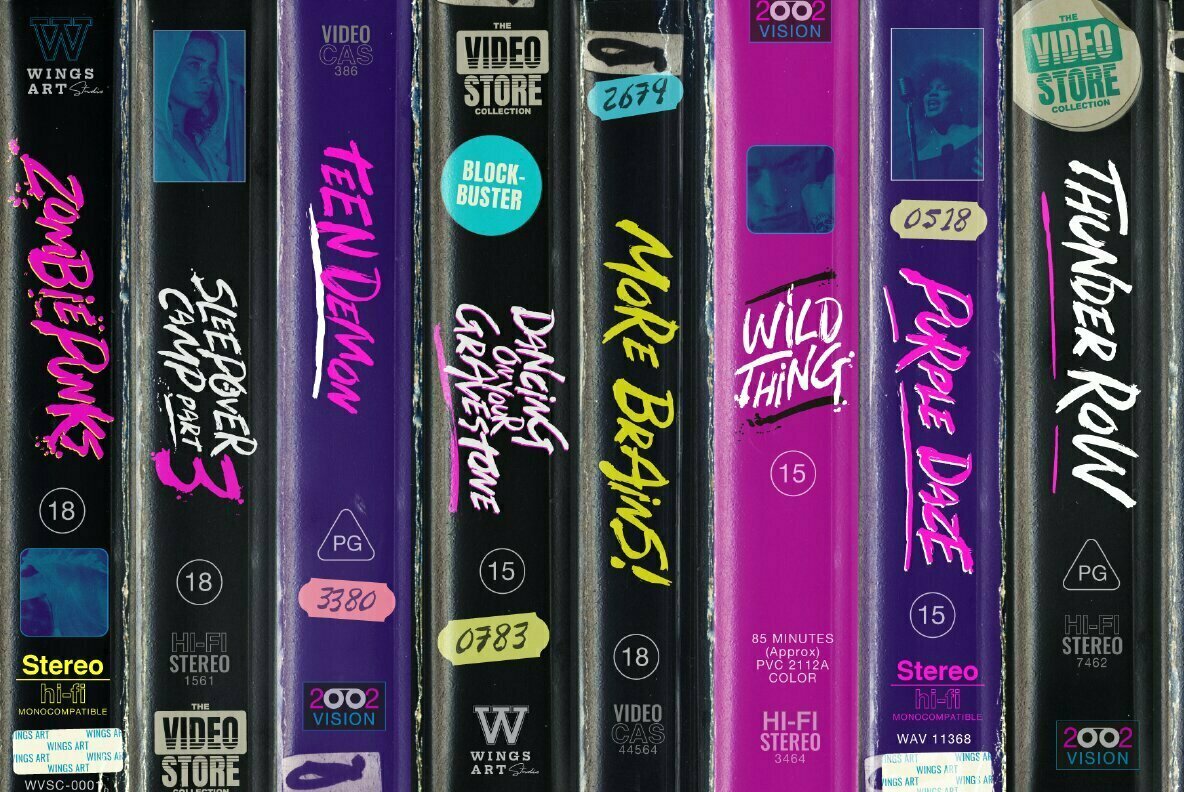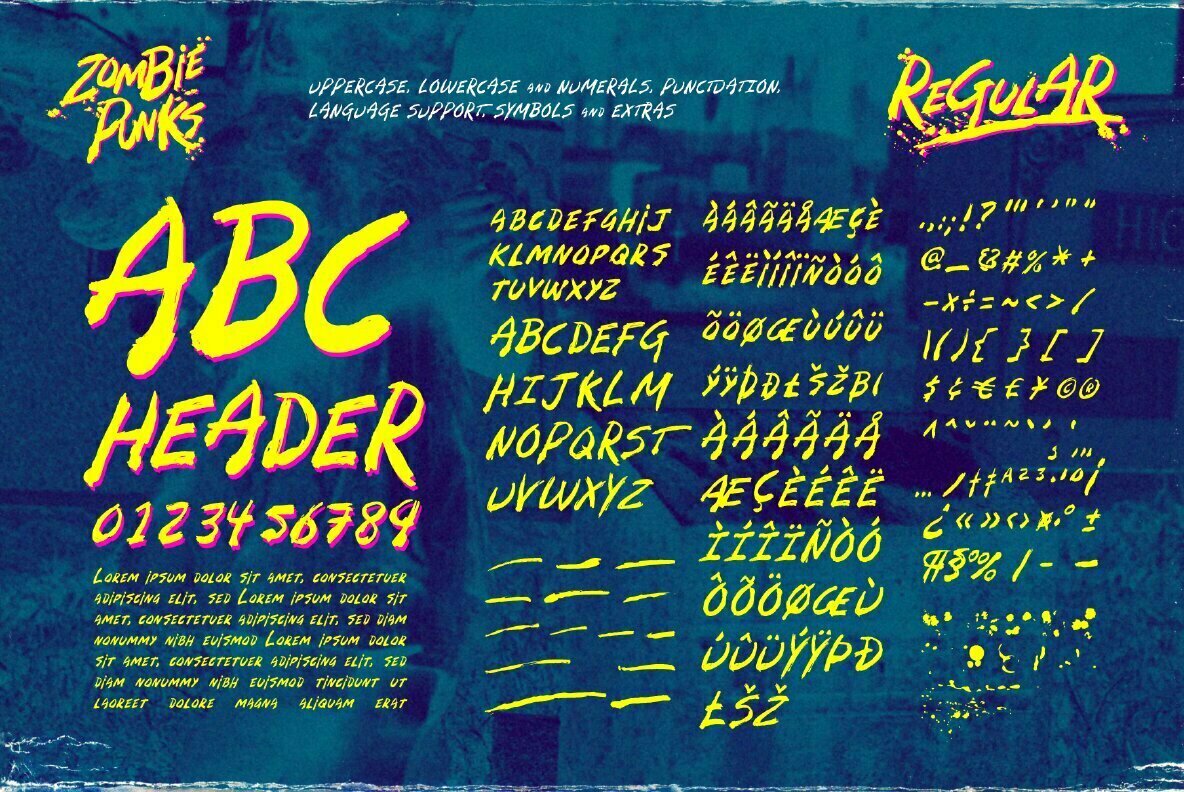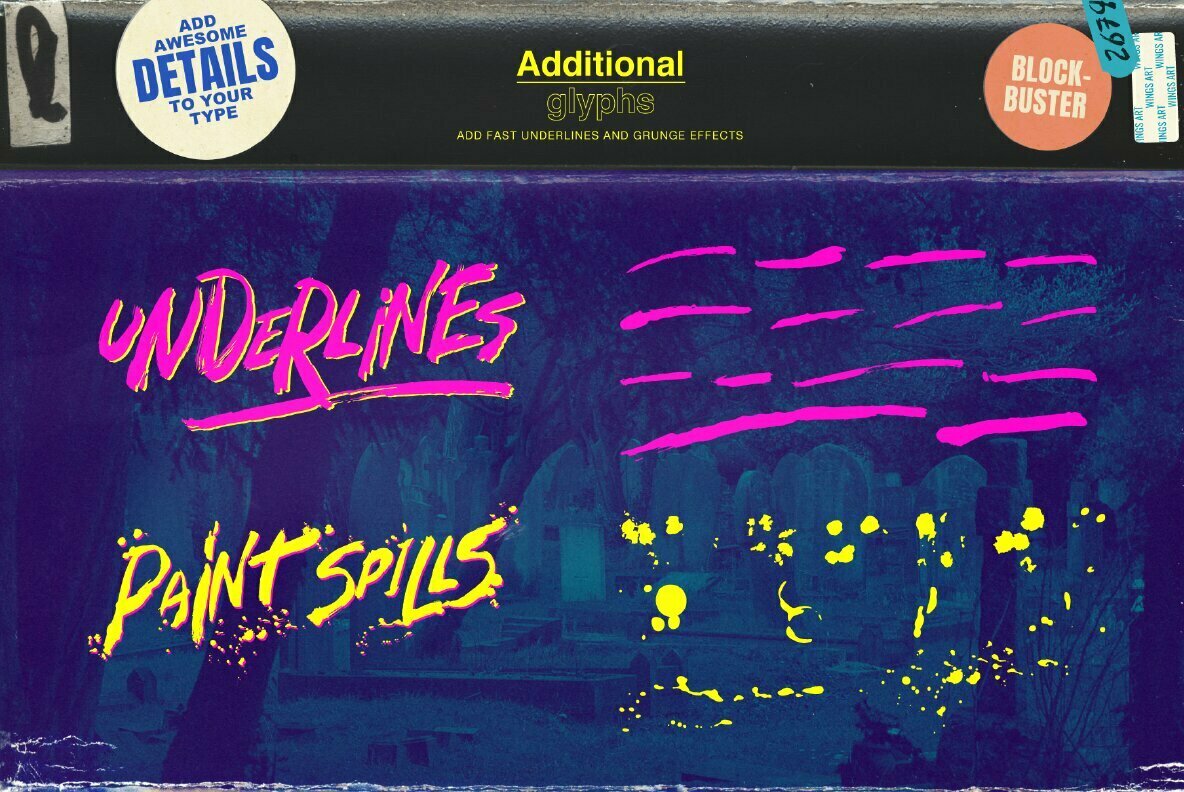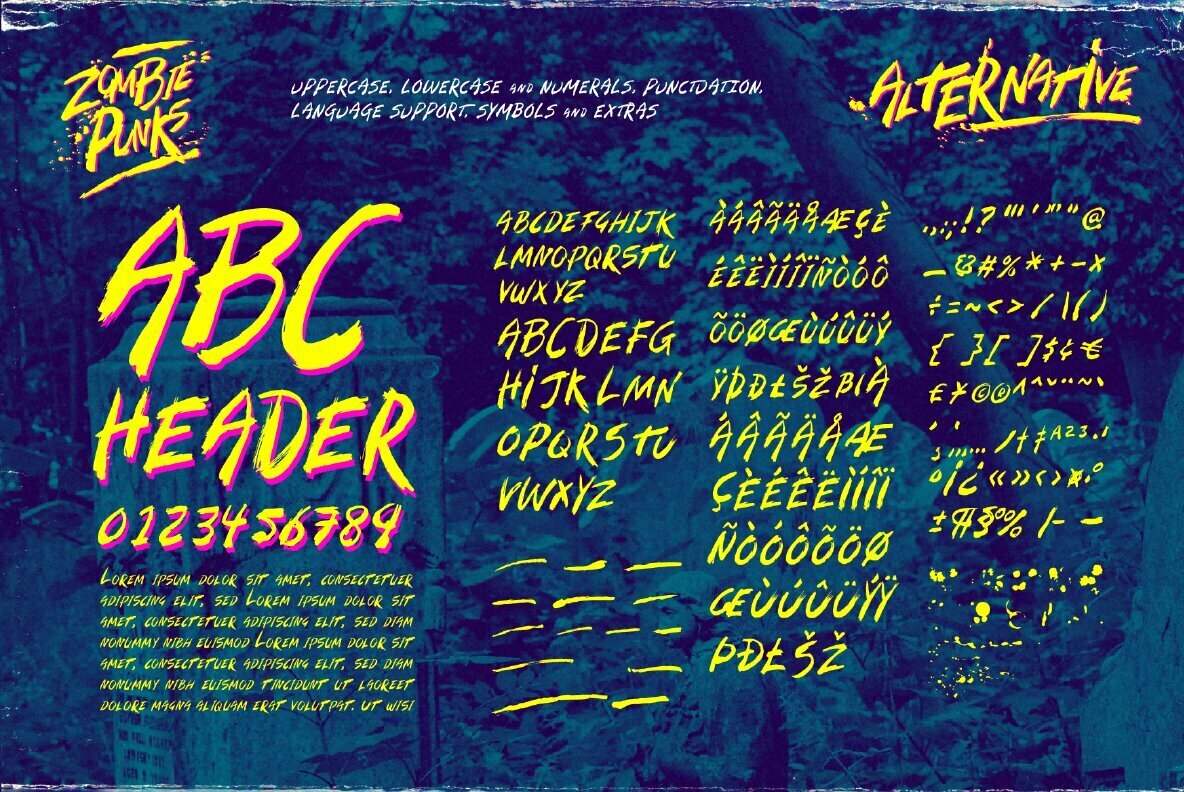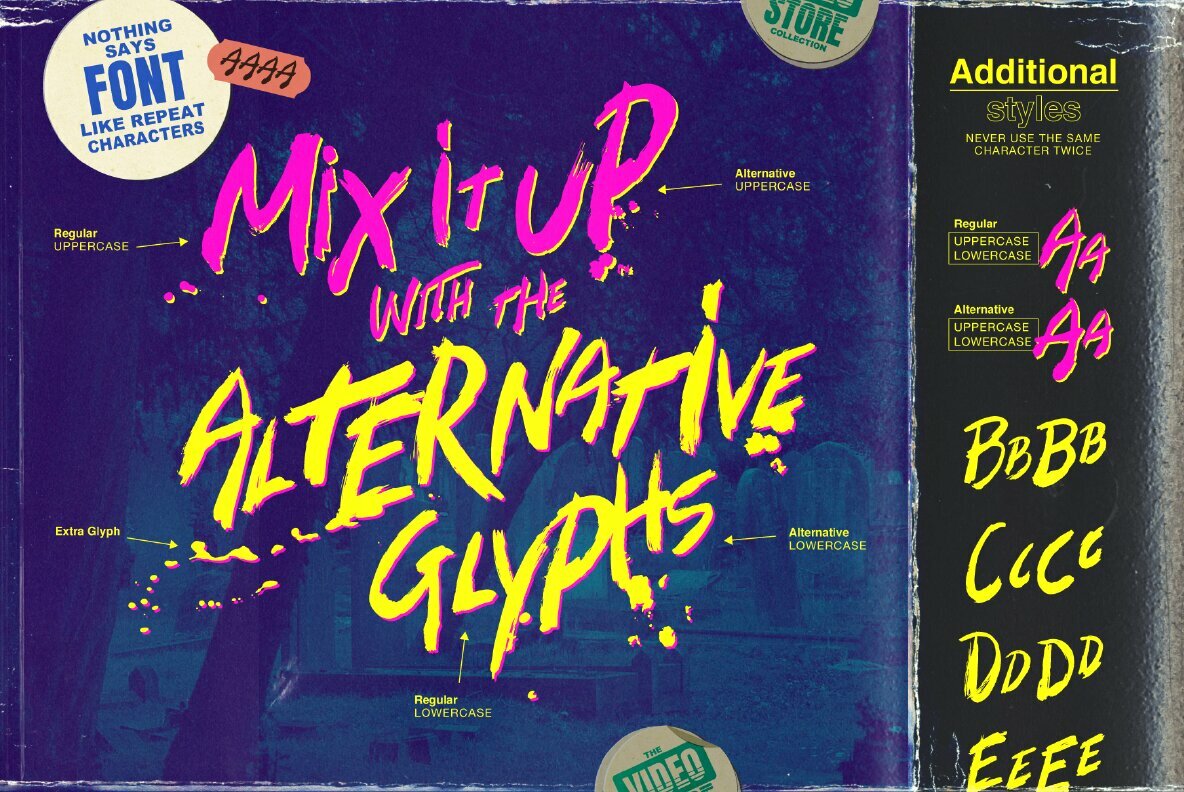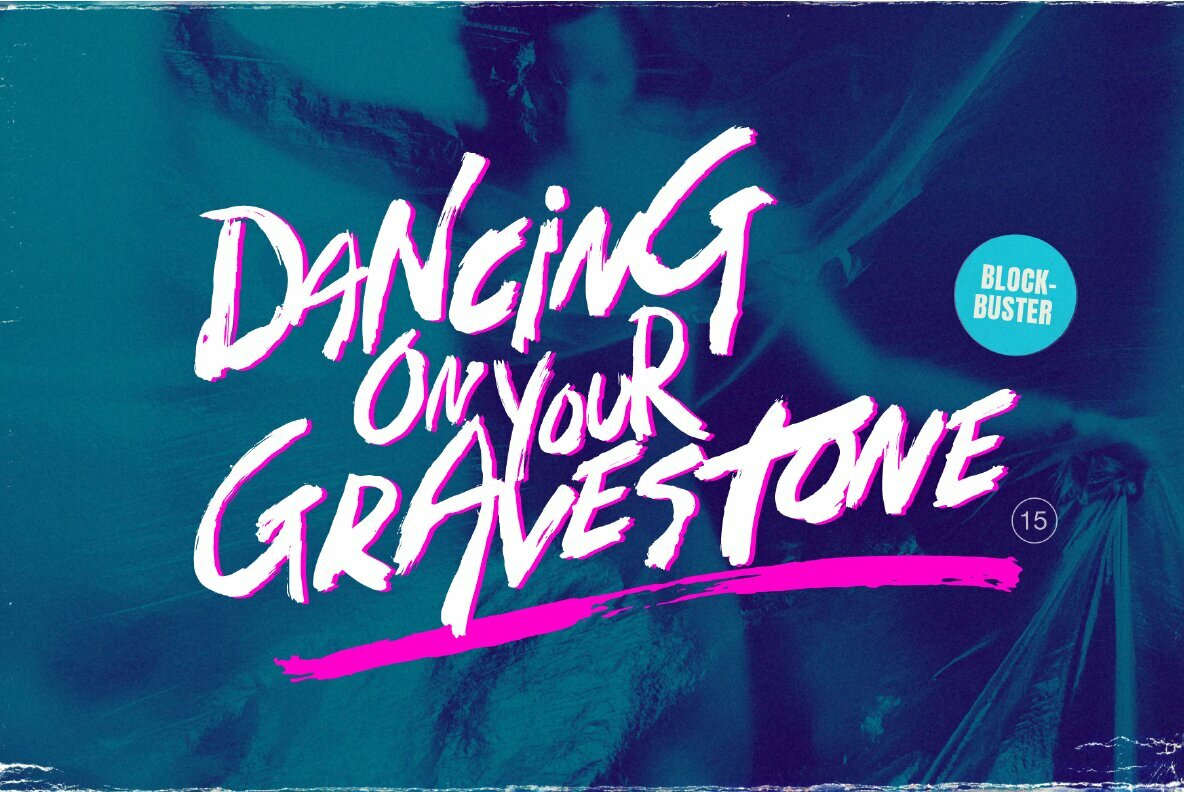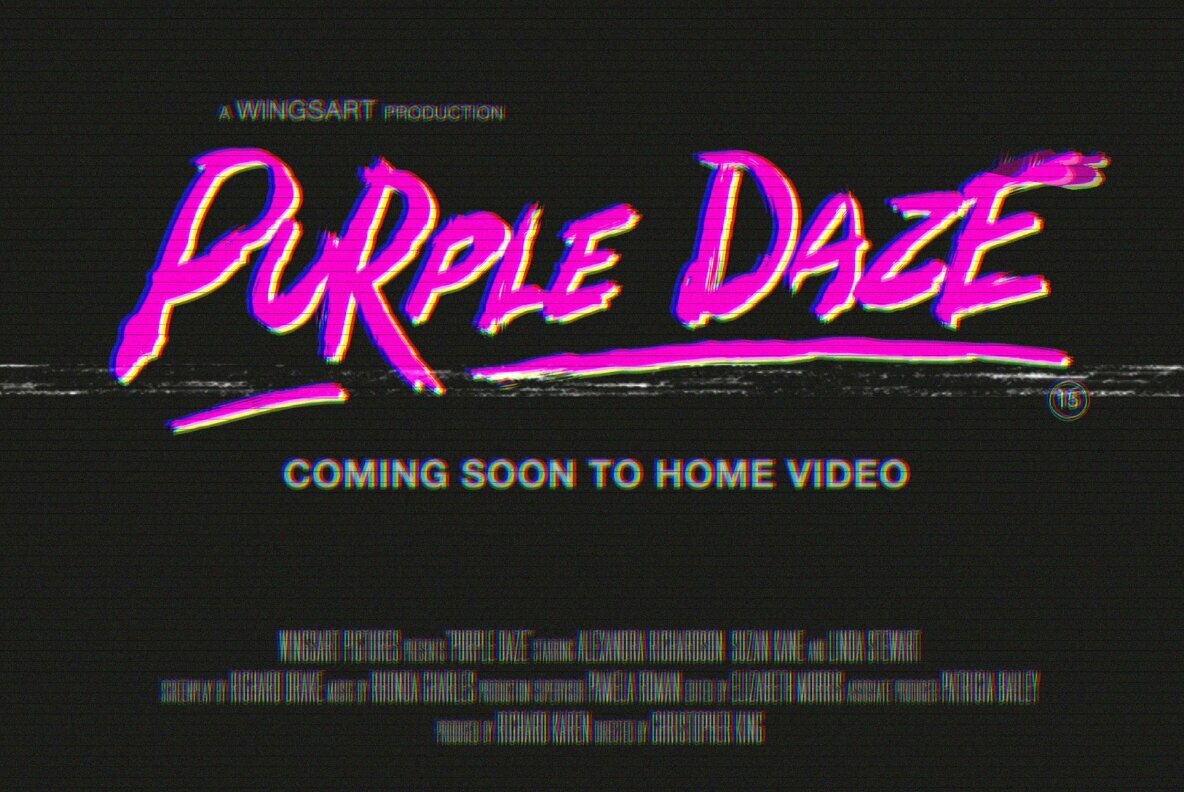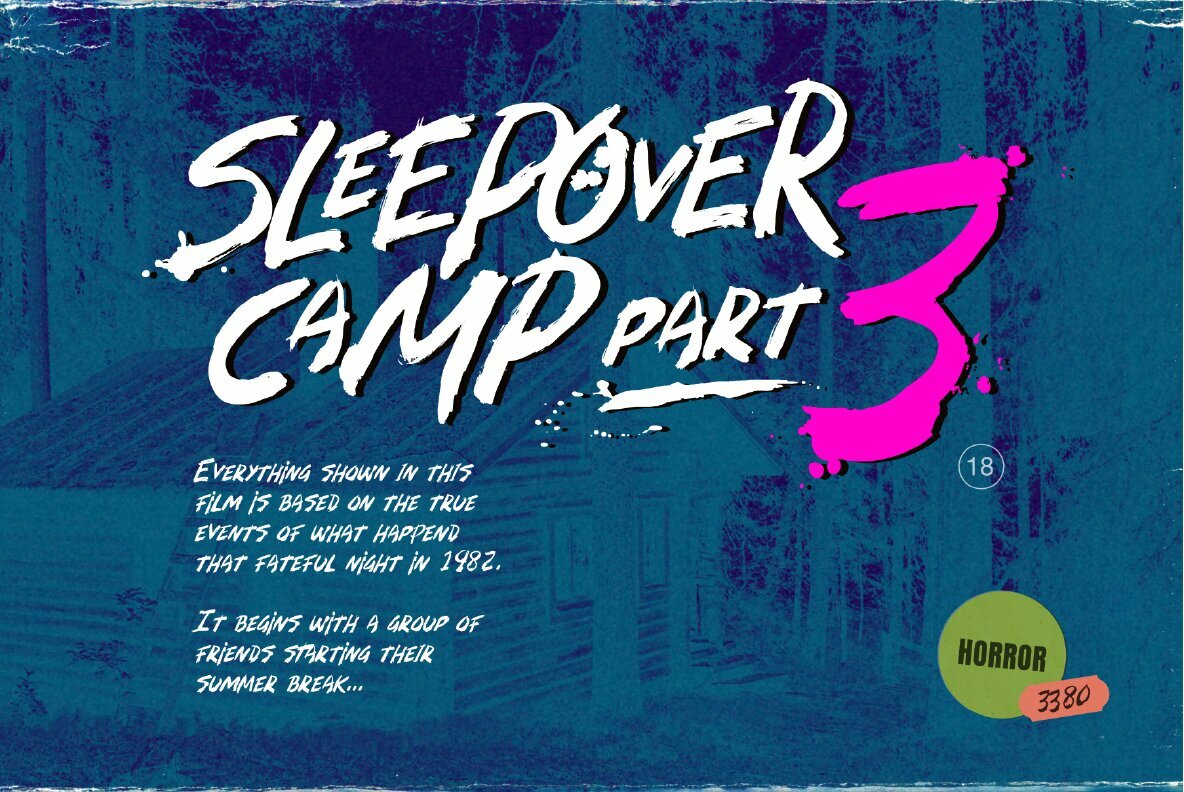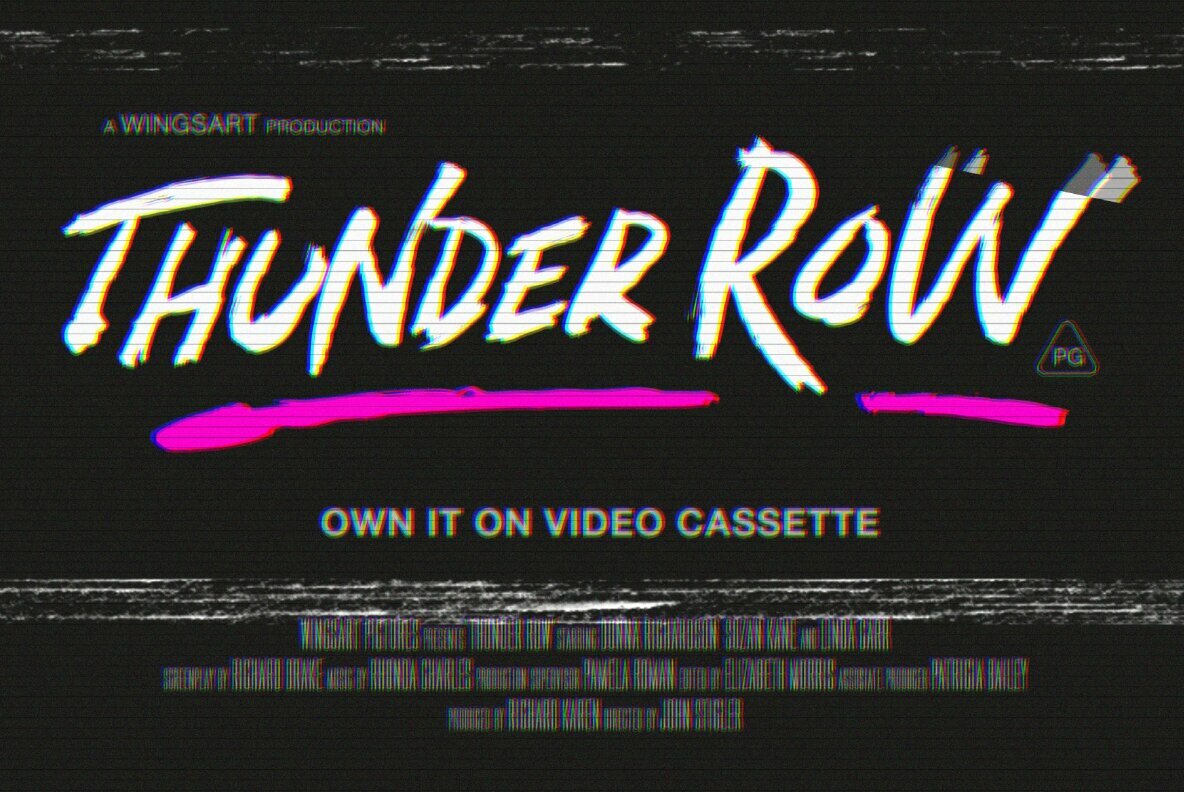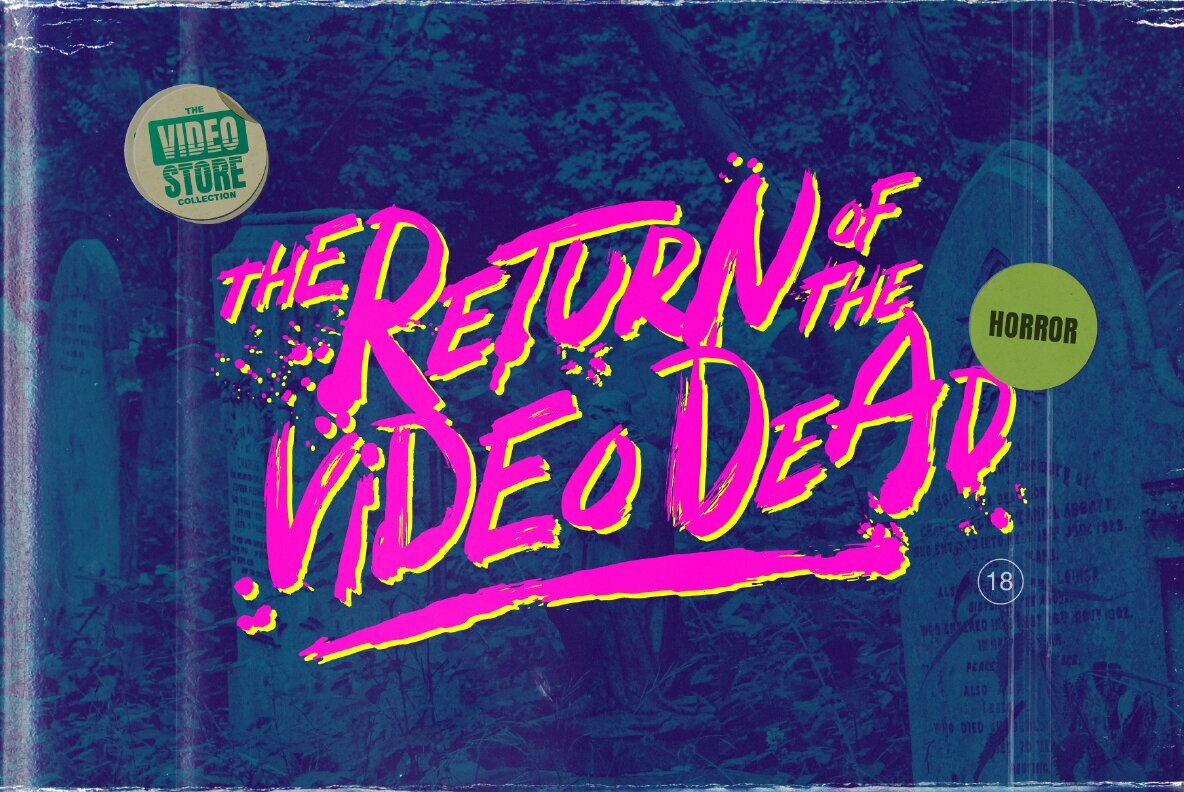
Zombie Punks Font
Introducing the first in a range of new font designs inspired by 80s VHS covers and the nostalgic video rental store experience.
Starting off with a classic horror flavor, Zombie Punks is a grungy, hand-drawn brush font supplied in two styles with additional underlines and paint spills. The perfect choice for use on movie posters and trailers, album covers, books and much more.
This all-caps design features punctuation, numerals and language support along with an alternative set of characters ensuring that you’ll never have to repeat your e’s or t’s for a more convincing and natural hand-made look. Check out the visuals for more details and cool usage examples.